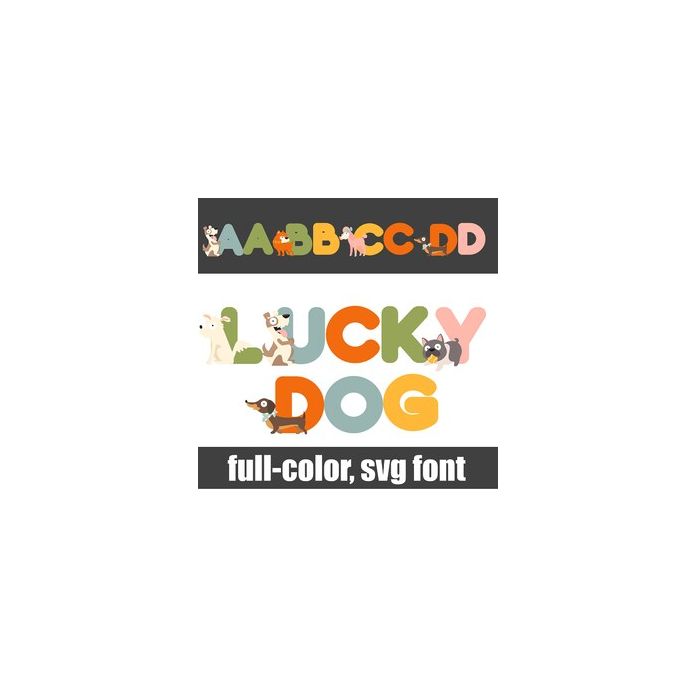
This full-color font features a variety of dogs on the uppercase and a lowercase without. strong pink outline and shadow. There is an alt case w/ additional colors you can access through your system or Silhouette's glyph map.